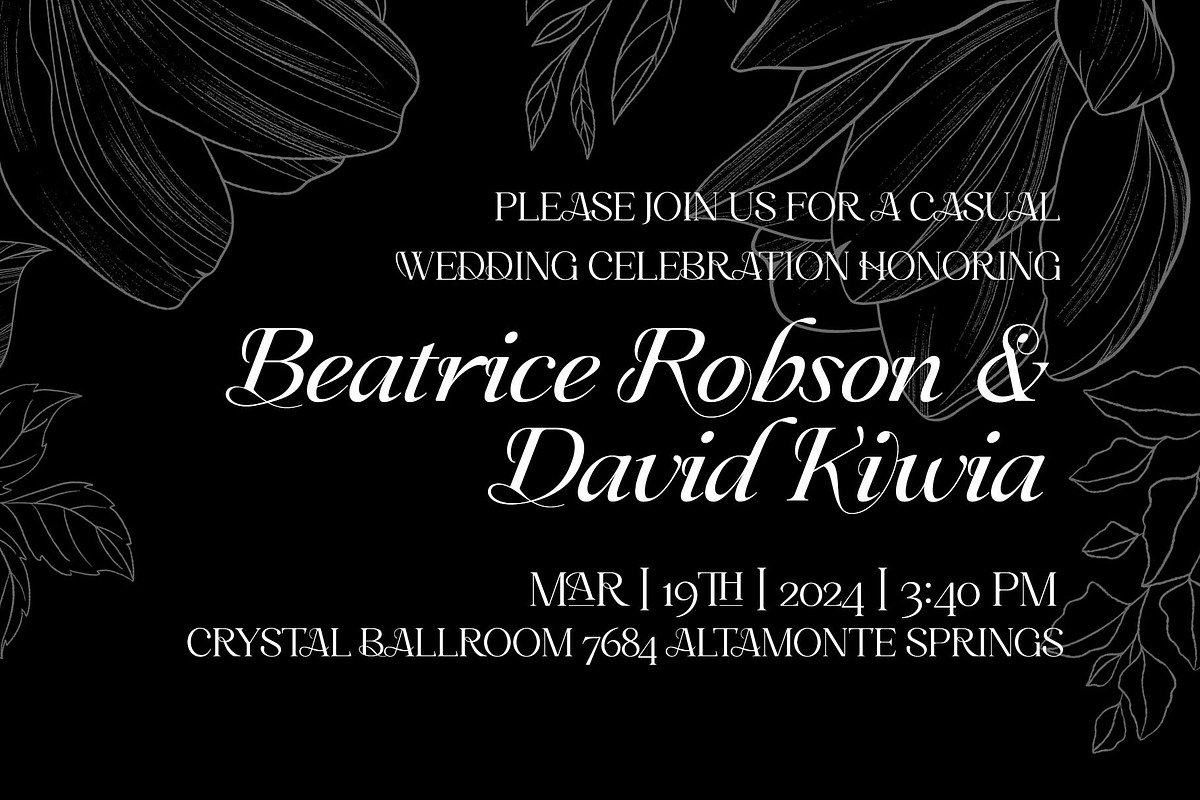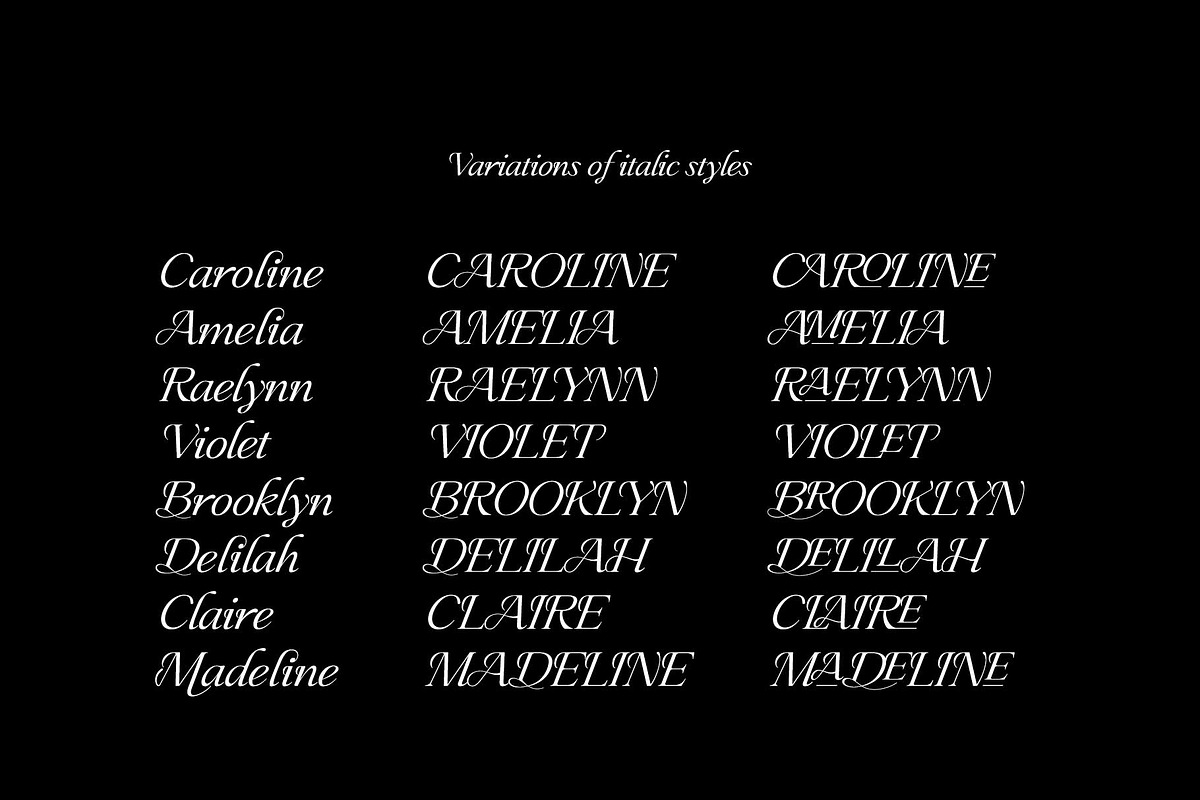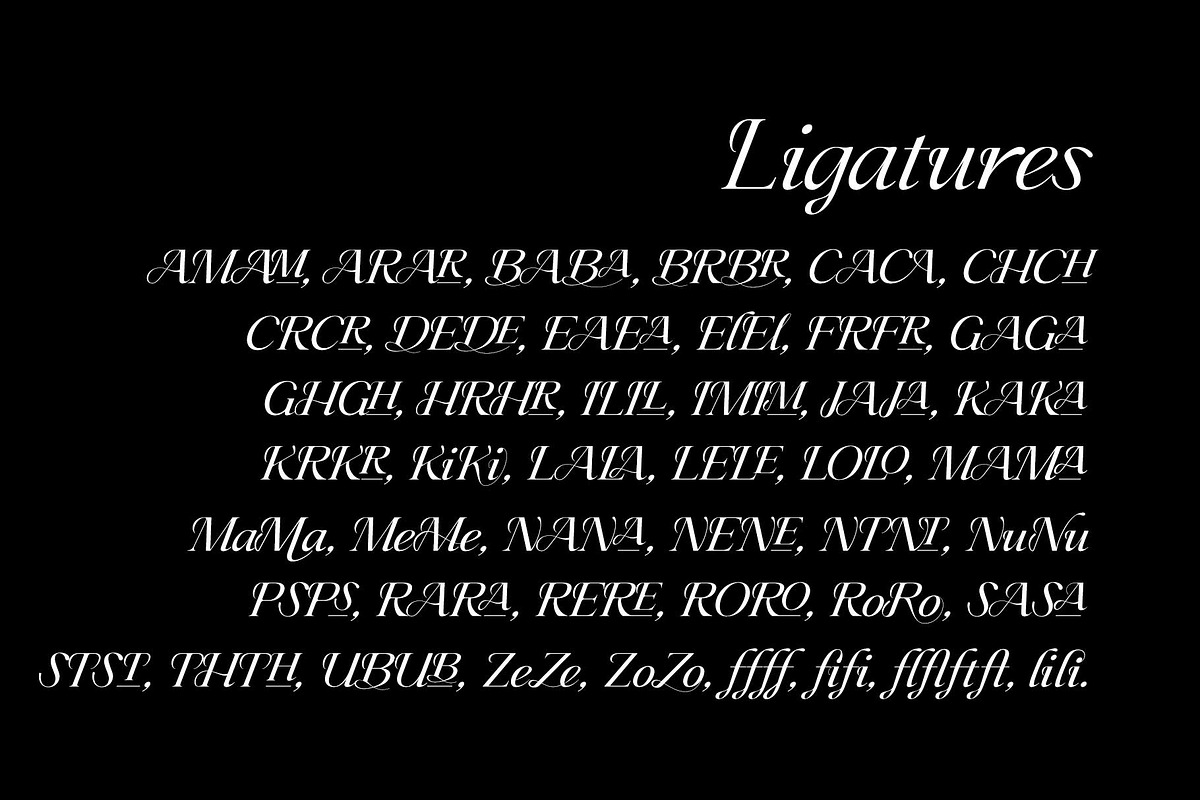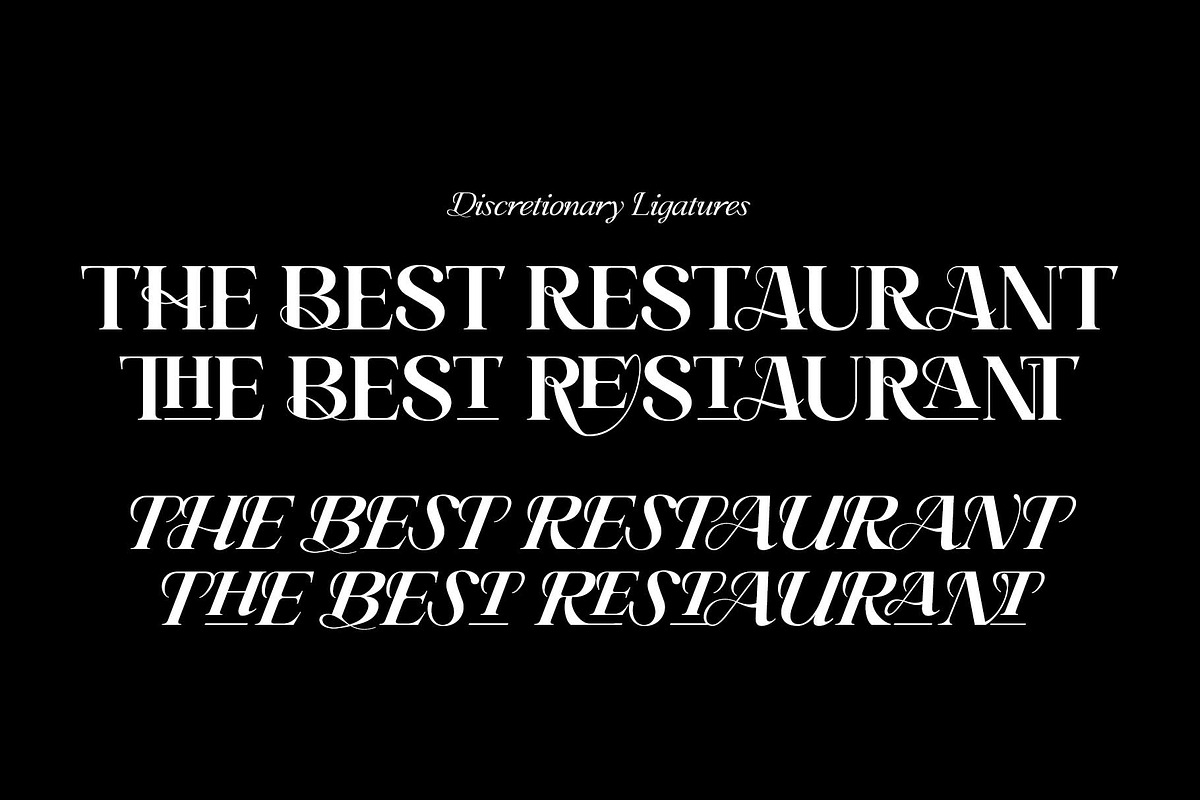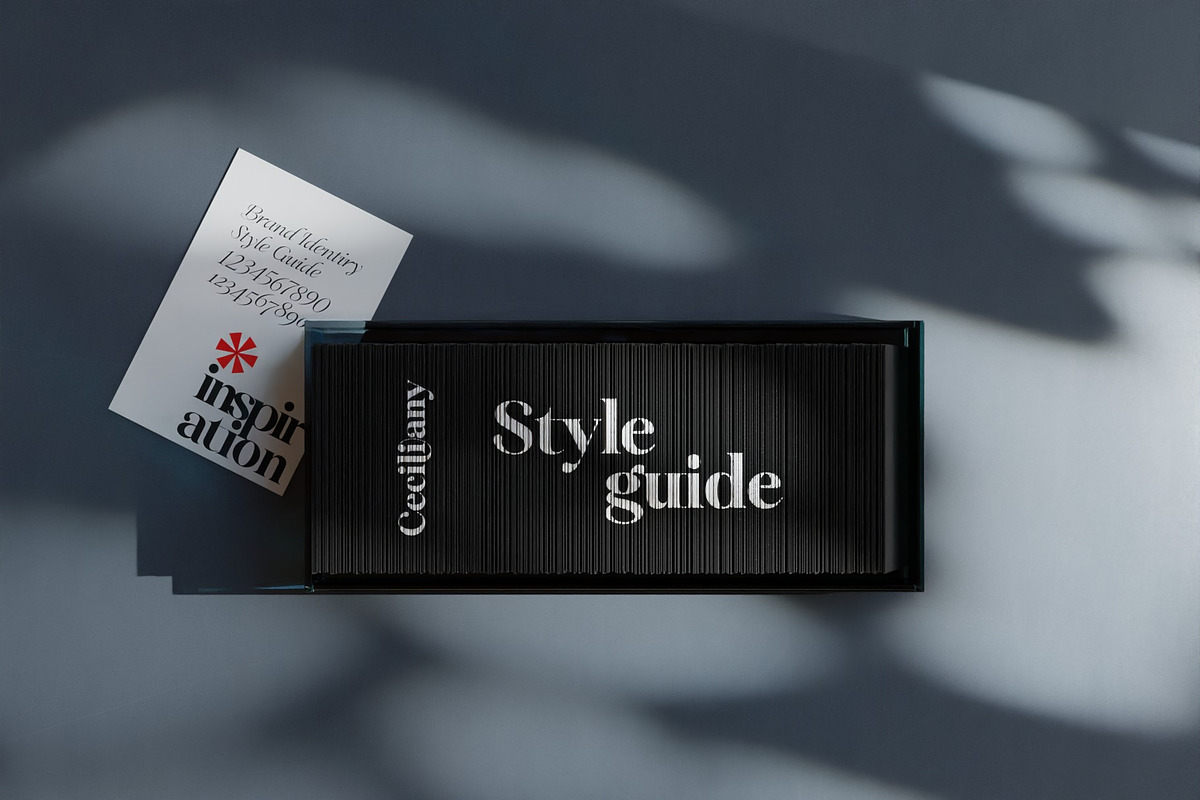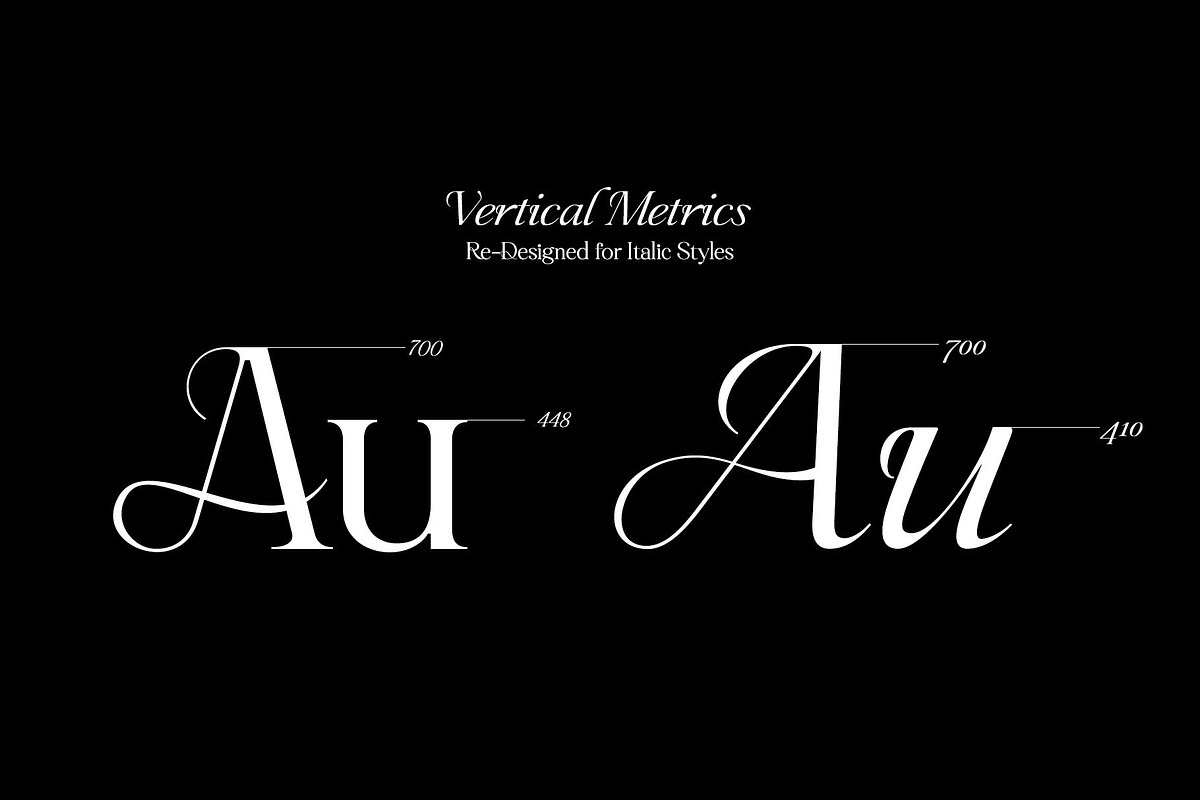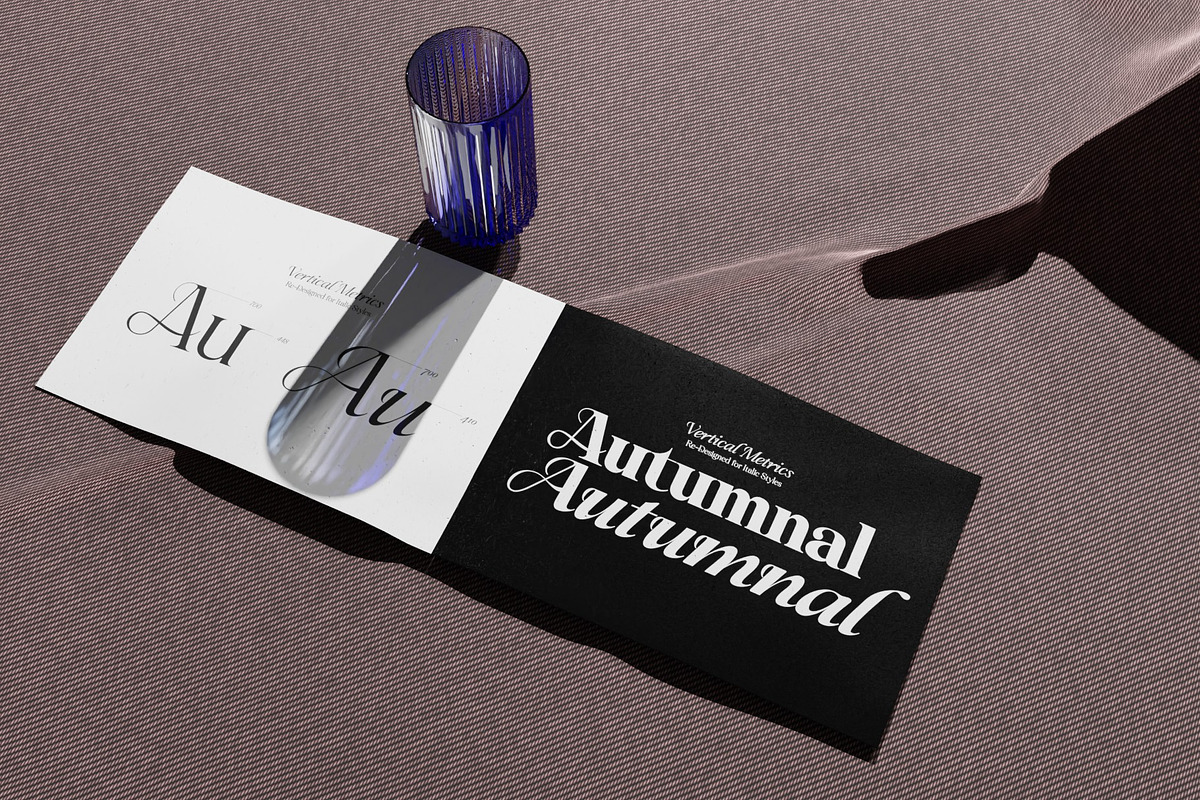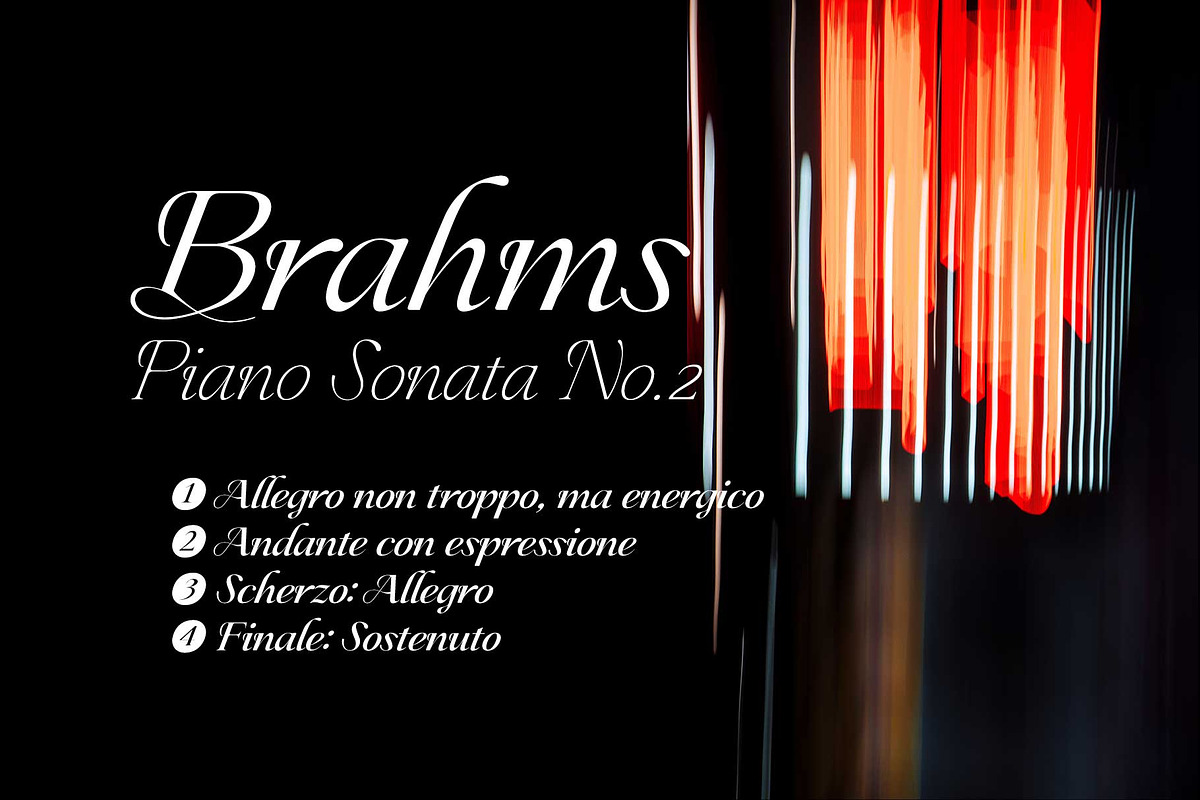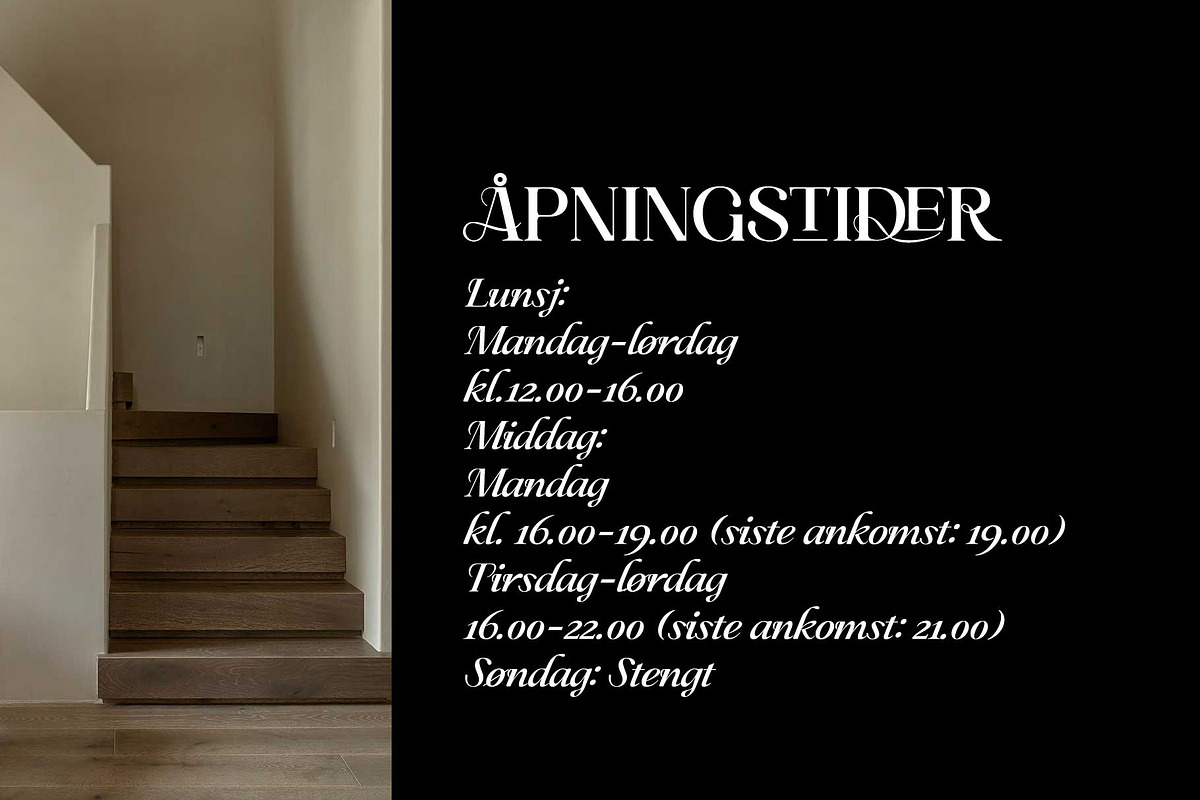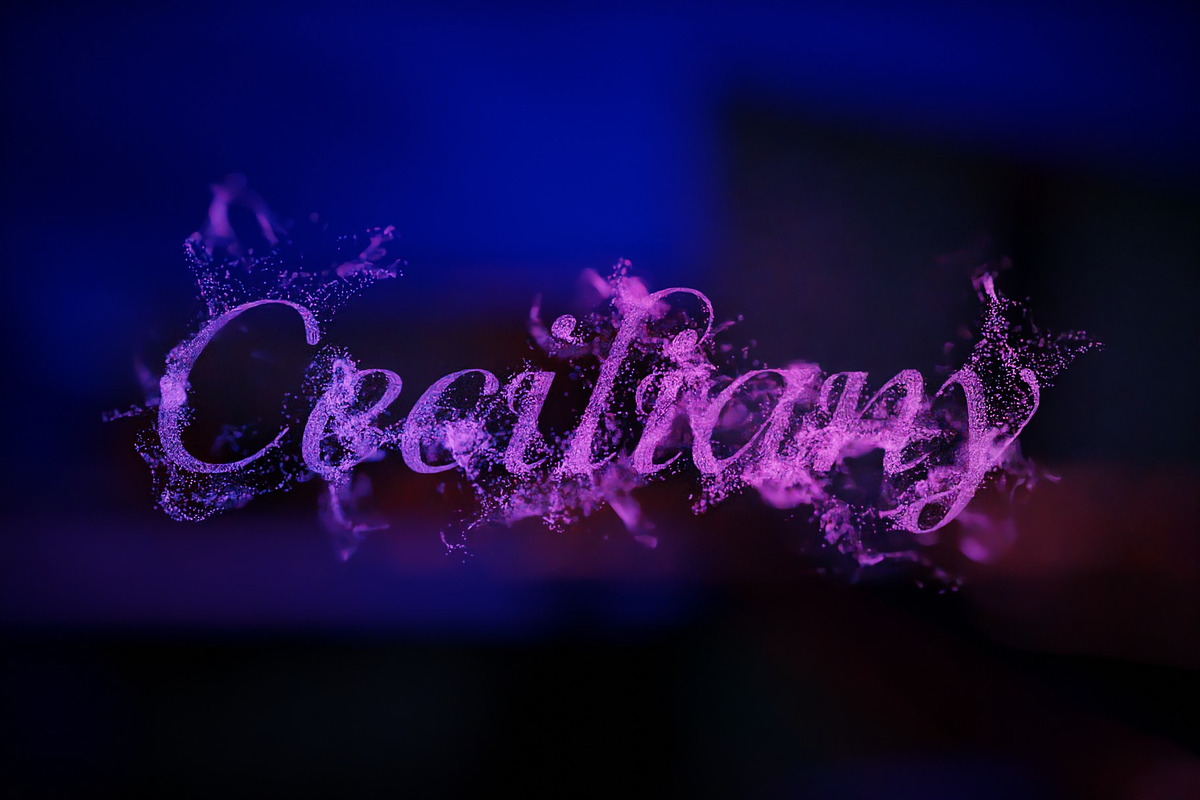
Ceciliany Serif Font Family
Ceciliany Serif Font Family.
Ceciliany is a classy font family that adds calligraphic touches to the basic structure of the display serif. Italic styles share a language set and OpenType Features compared to static styles, but have a completely different metrics. In addition, an elaborate and detailed kerning system is also operated separately.
9 weights and 18 unique styles offer designers the amazing creativity of the serif font family.
It offers a variety of options for editorial design as well as typography work for various channels.
- 9weights, 18styles
- Optimized Kernings
- Stylistic Set
- Fractions
- Oldstyle Figures
- Discretionary Ligatures : AM, AR, BA, BR, CA, CH, CR, DE, EA, El, FR, GA, GH, HR, IL, IM, JA, KA, KR, Ki, LA, LE, LO, MA, Ma, Me, NA, NE, NT, Nu, PS, RA, RE, RO, Ro, SA, ST, TH, UB, Ze, Zo, ft, li.
- Standard Ligatures : ff, fi, fl.